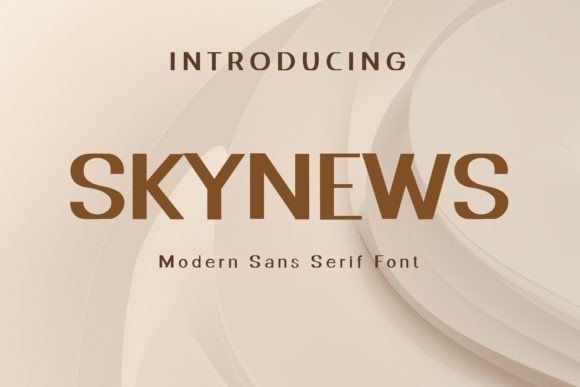
Step into the world of Skynews, a sans serif font that embodies a symphony of sophistication and versatility. Crafted with precision, this typographic masterpiece is the brainchild of ajiwaluyo88, a visionary font designer known for pushing the boundaries of creativity.
Skynews is not just a font; it's an experience. Its sleek and streamlined design captivates the eyes, exuding an aura of modern elegance that elevates any project it graces. Whether you're a seasoned designer or a creative enthusiast, Skynews is your gateway to unlocking a world of limitless possibilities.
Its crisp and clean lines dance across the page, creating a visual tapestry that demands attention. From captivating headlines to eye-catching branding, Skynews breathes life into your words, making them leap off the screen with a vibrancy that's impossible to ignore.
With Skynews, you'll discover a font that effortlessly adapts to your creative vision. Its inherent versatility shines through in its ability to blend seamlessly into diverse design landscapes. Be it a stunning poster that commands attention or an elegant website that exudes professionalism, Skynews effortlessly elevates your designs, transforming them into masterpieces that captivate and inspire.
Immerse yourself in Skynews' boundless charm and experience the joy of creating with a font that knows no limits. Unleash your imagination and let Skynews guide you on a journey of visual storytelling, where every letter carries a weight of significance and every word weaves a tale that resonates with your audience.
Skynews is more than a font; it's an investment in your creative arsenal. Its timeless appeal ensures that it will remain a cornerstone of your design toolbox for years to come, adapting effortlessly to the ever-changing landscape of design trends.
Embrace the allure of Skynews and unlock a world of creative possibilities. Let your designs soar to new heights, captivating audiences with a font that speaks volumes.